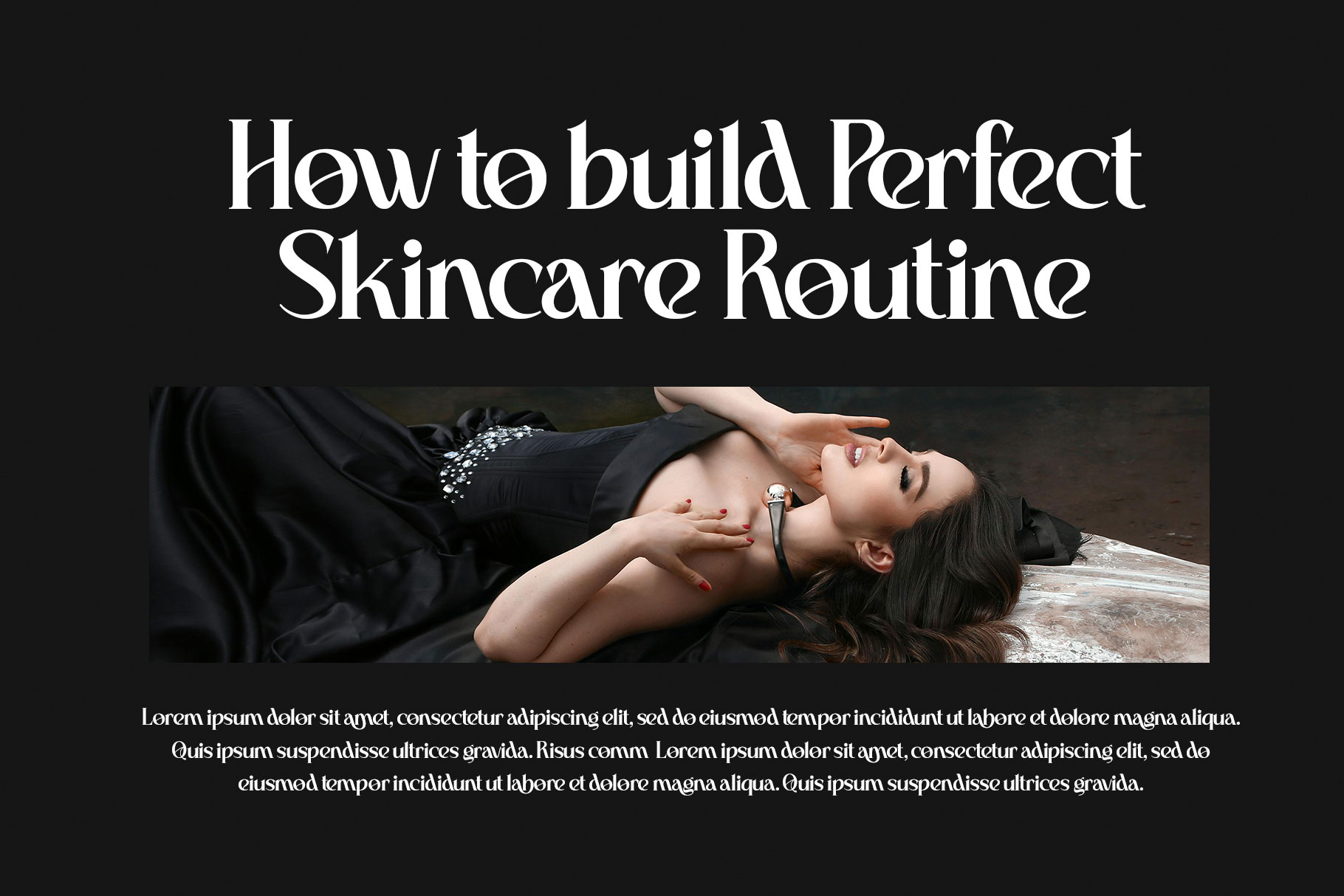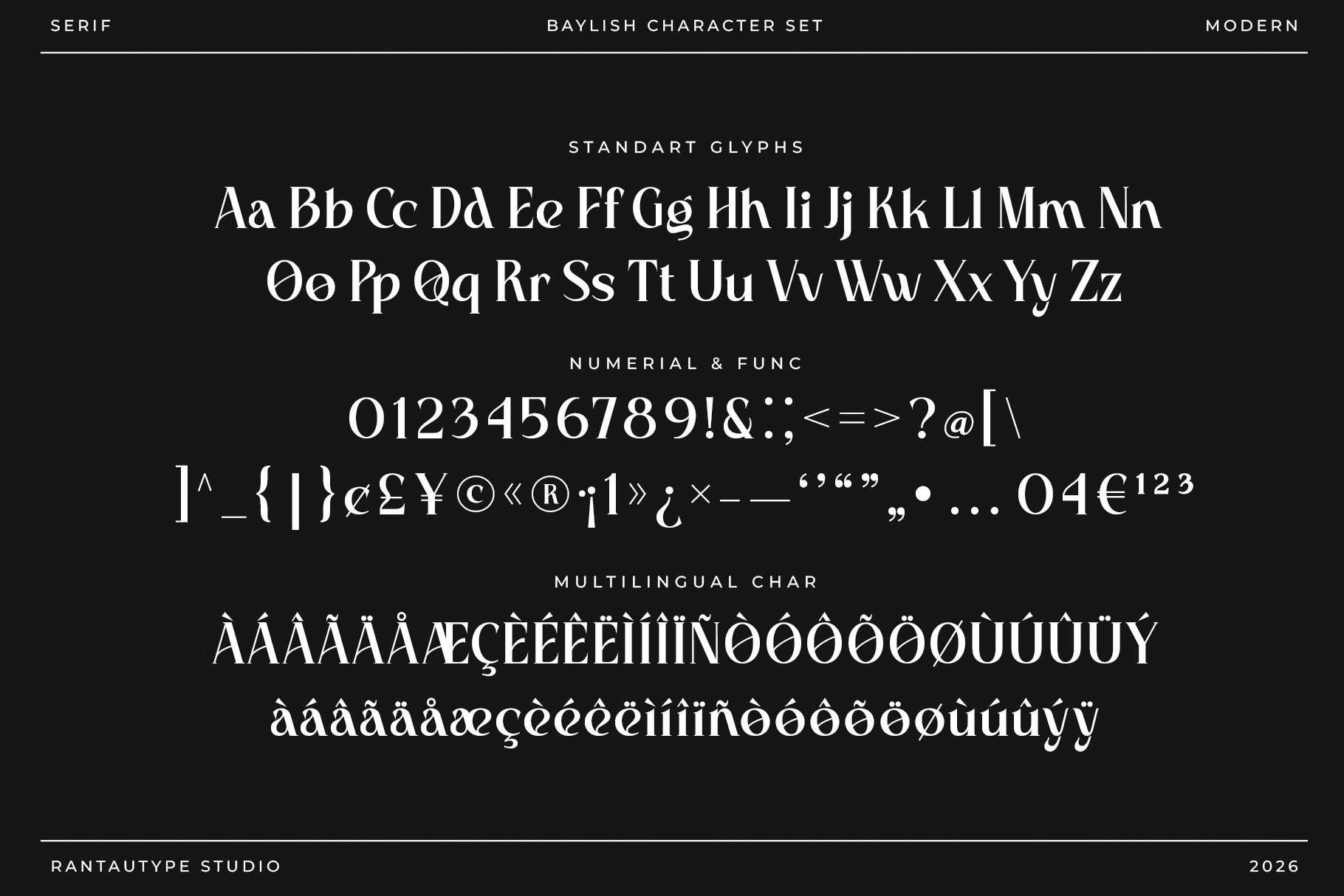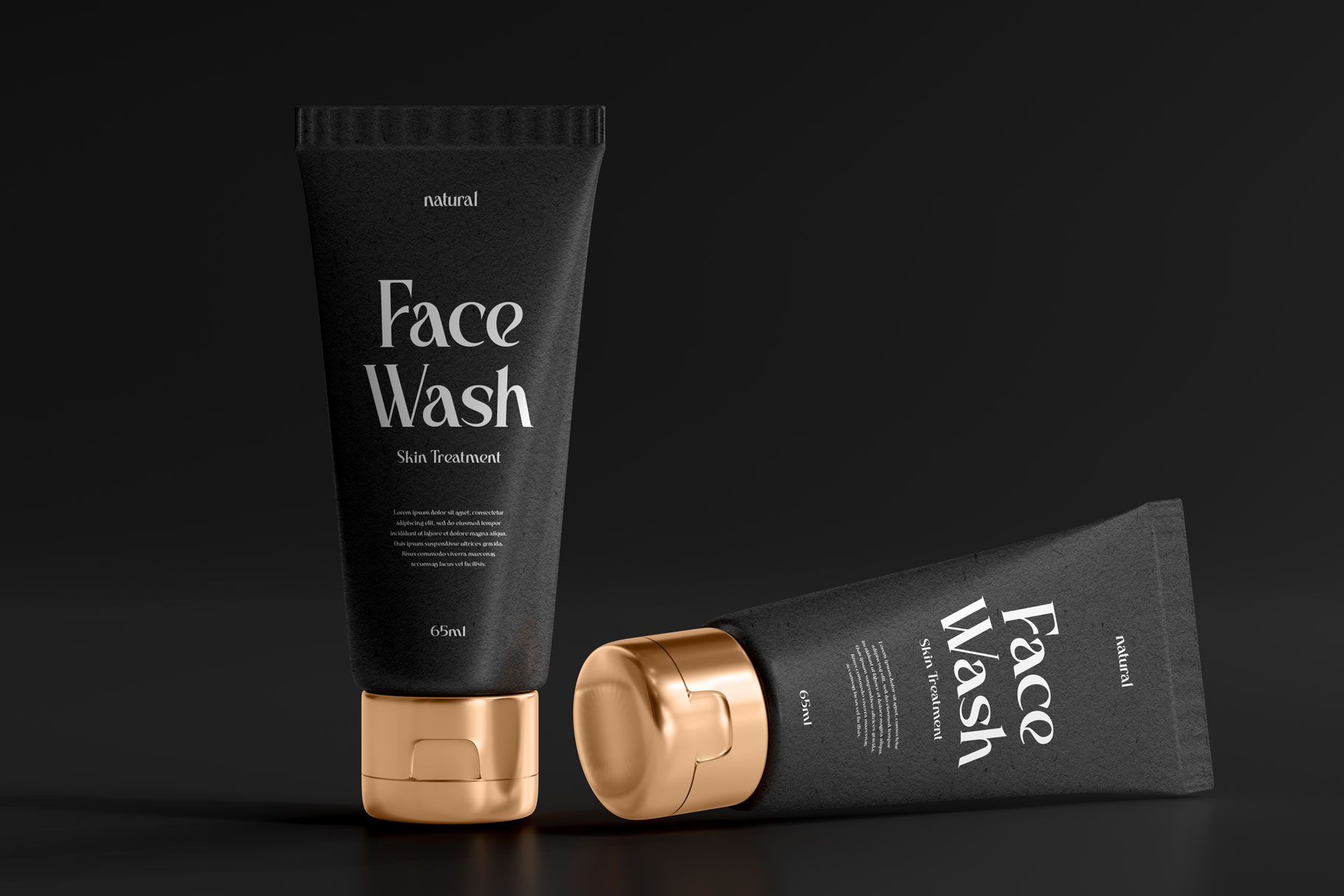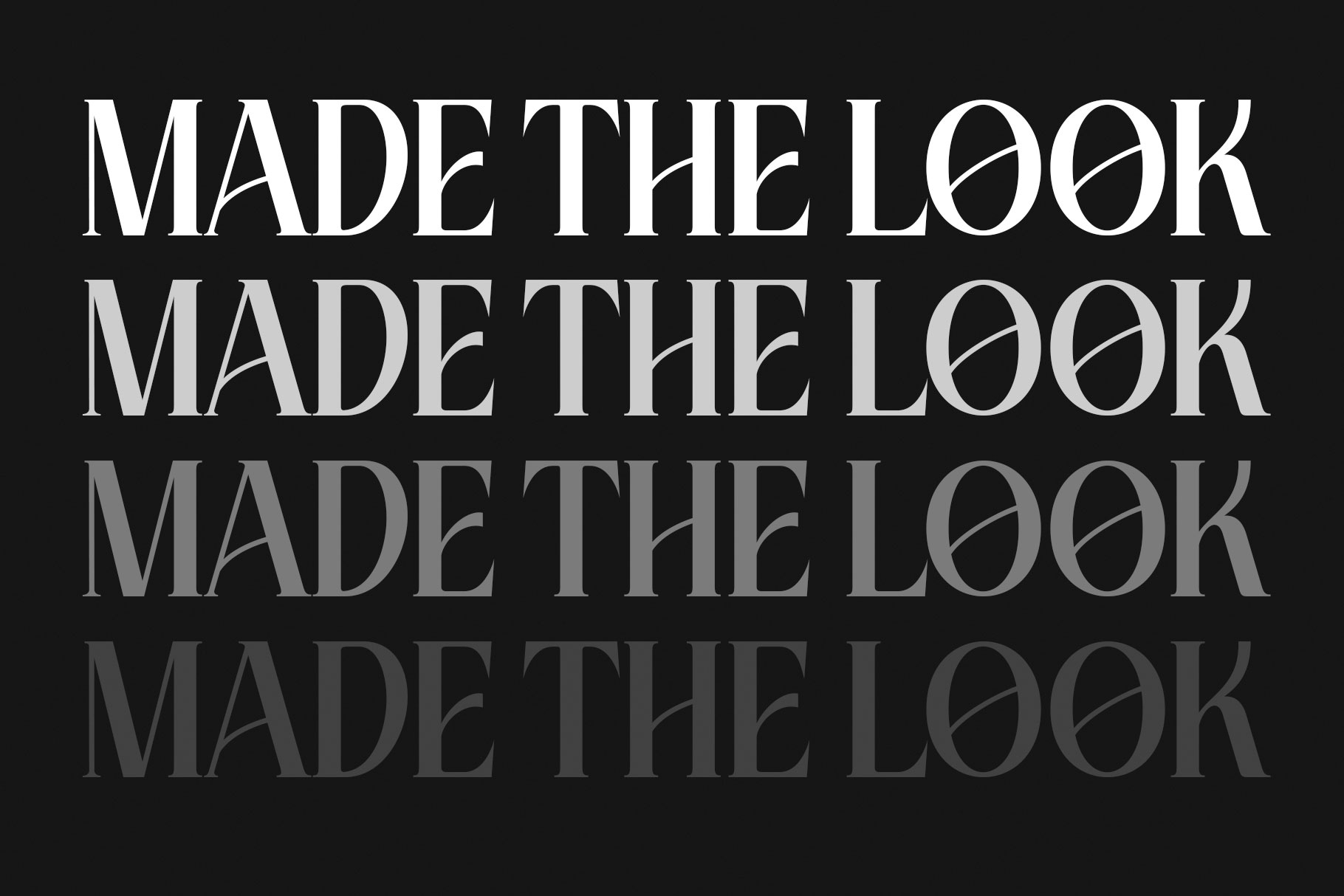
Baylish Modern Branding Serif Font
Baylish is modern serif font blends timeless elegance with contemporary sophistication. This balance creates a typeface that feels luxurious yet approachable perfect for brands aiming to stand out in a competitive visual landscape. Baylish come with stylish alternate you can mix to create awesome design. Ronedia is a perfectly choice for any creative endeavor, creating, modern, lifestyle design such as logotype, title, cover, branding, invitations, wedding designs, display and magazine, social media posts, advertisements, printed quotes, product packaging, corporate brand, product designs, labels, photography, watermarks, special events and any other project with modern touch.